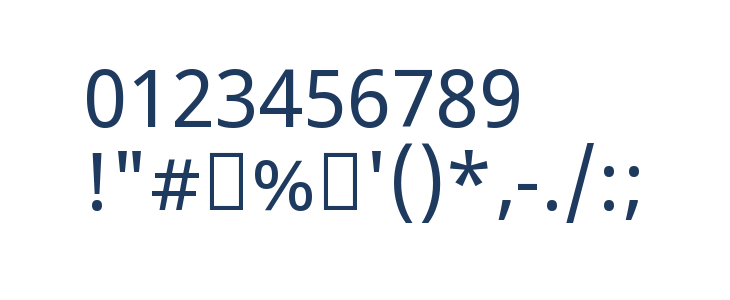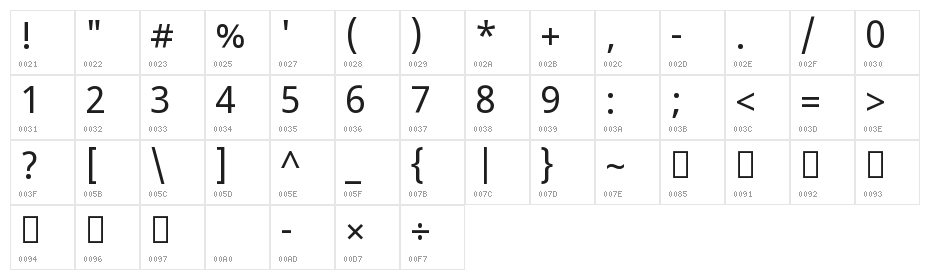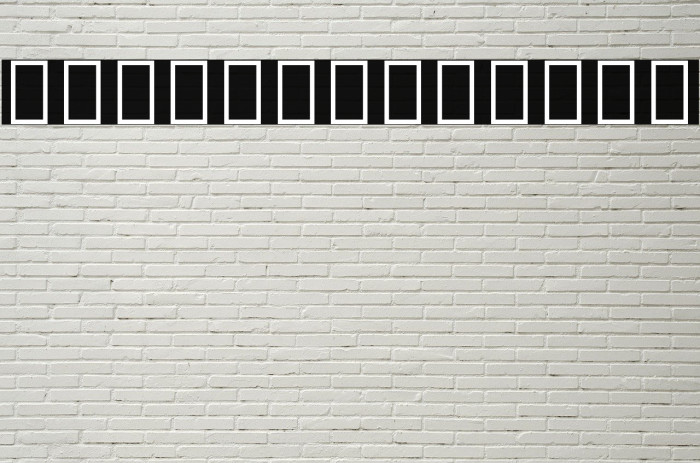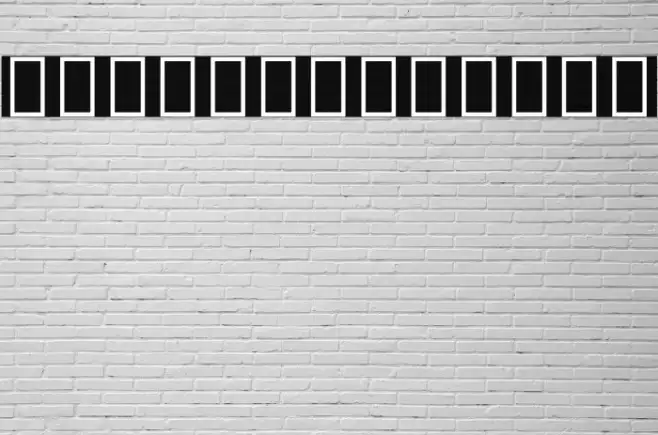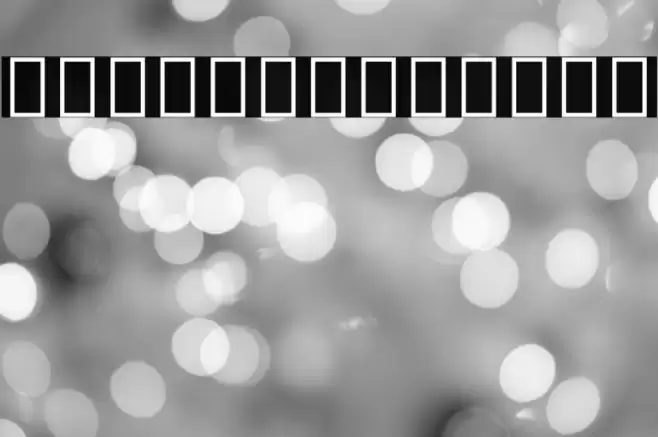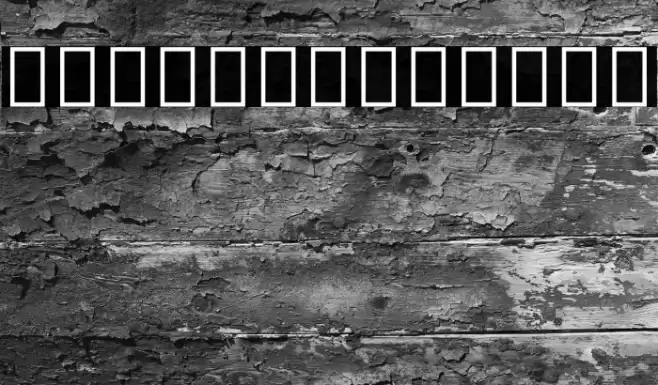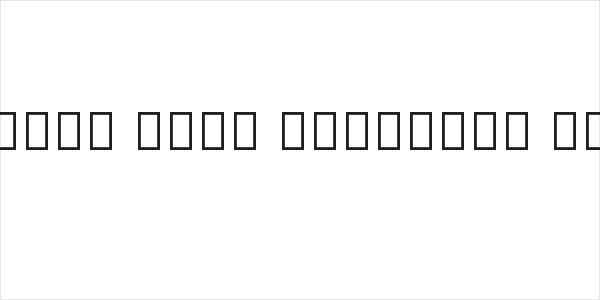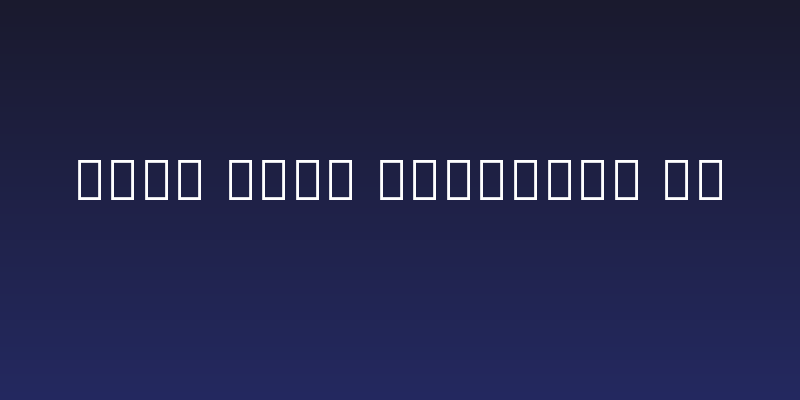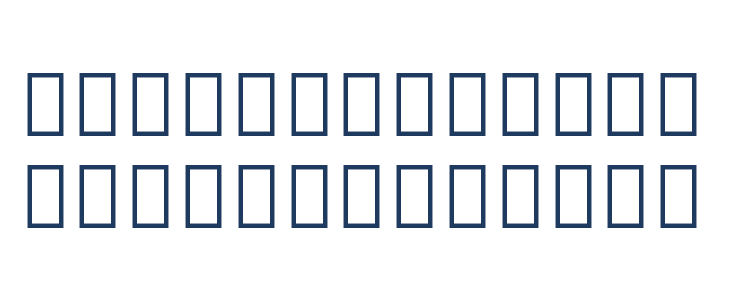
Noto Sans Gujarati UI Font
Noto Sans Gujarati UI Description
This font is designed with a clean and modern aesthetic, featuring smooth curves and a balanced structure. It is highly legible, making it suitable for both digital and print media. The characters are evenly spaced, providing a harmonious flow that enhances readability. The design is minimalistic, with a focus on clarity and simplicity, ensuring that it stands out without being overwhelming. This font is versatile, making it ideal for a variety of applications, from user interfaces to editorial design.